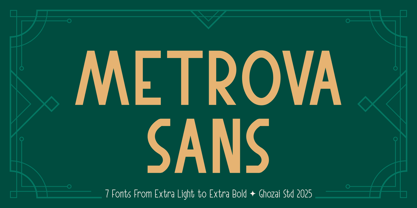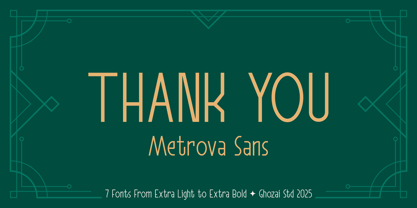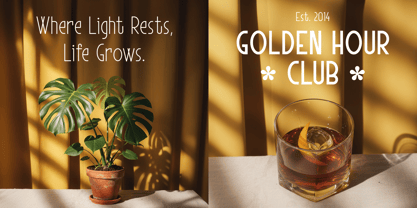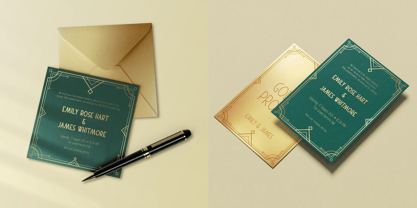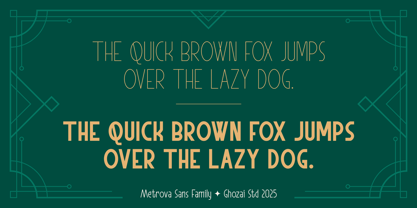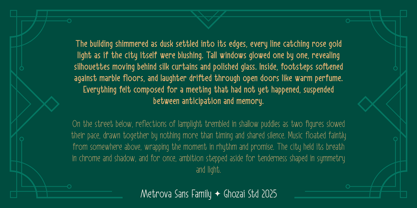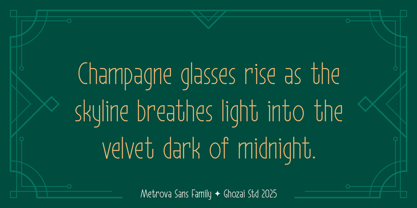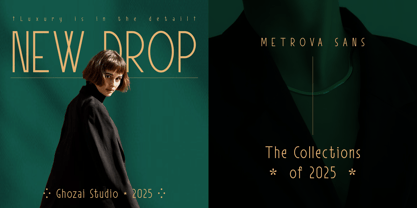
Metrova Sans
by Ghozai Studio
The Metrova Sans Font Family was designed by Manzur Ghozaali and published by Ghozai Studio. Metrova Sans contains 7 styles and family package options. More about this family
Metrova Sans is a font family that is inspired by Art Deco typeface. Metrova Sans features 7 weights, ranging from Extra Light to Extra Bold. With a wide variety of weights, OpenType features, and multilingual glyph support, Metrova Sans ensures versatility across different languages and design needs. Its classic, polished, elegant style and timeless design make it ideal for a variety of applications, including display, branding, signage, and more. Whether creating luxury looks, unique design, impactful headlines, distinctive logos, or clear signage, Metrova Sans delivers both style and functionality. Its flexibility allows it to adapt to different design styles, making it the perfect choice for any project that requires a bold and contemporary touch.
Designers: Manzur Ghozaali
Foundry: Ghozai Studio